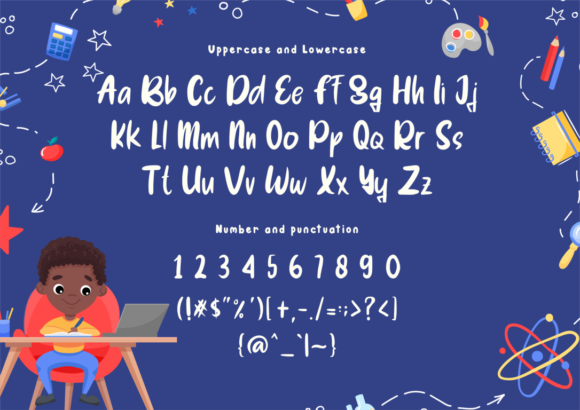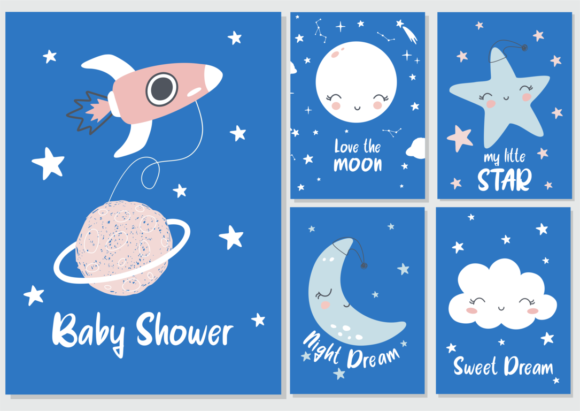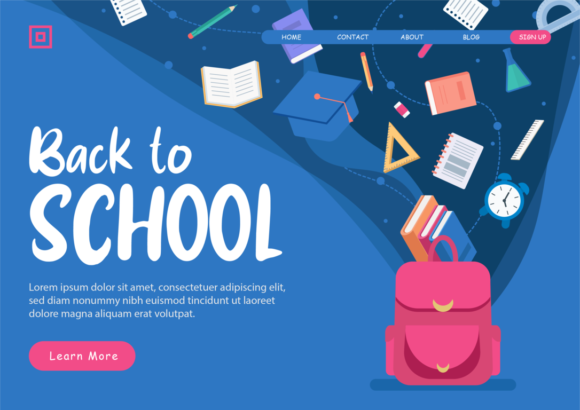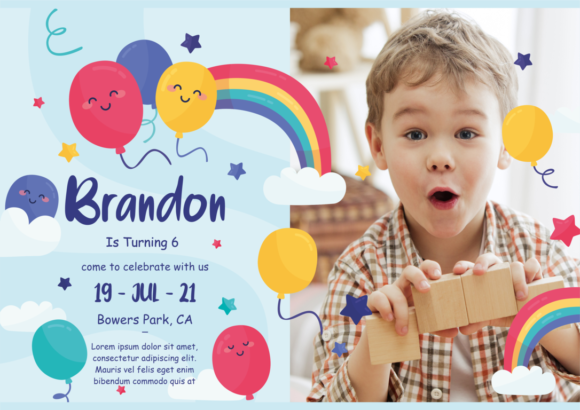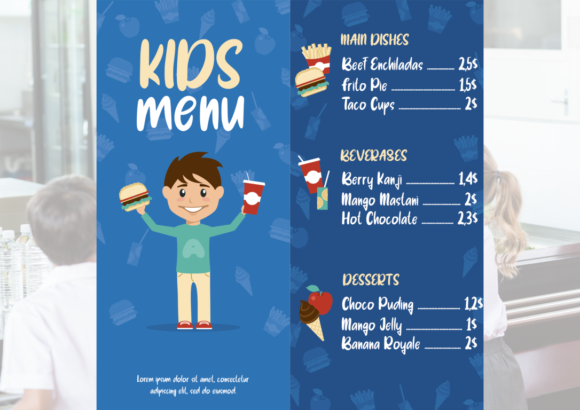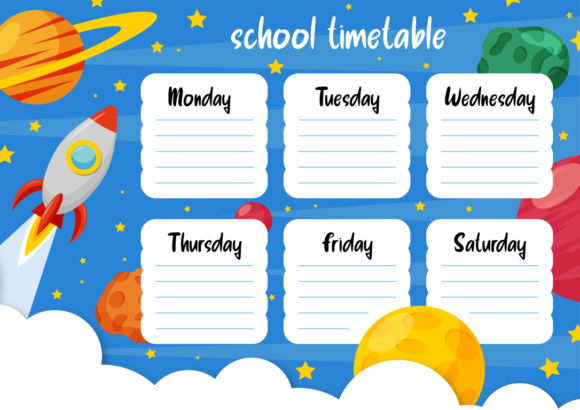
The Perfect Smile for Your Next Design Project
Have you ever sat down to create something new, only to be stuck staring at a blank page or screen, waiting for inspiration to strike? I know I have. Sometimes all it takes is the right tool to get those creative juices flowing, and that’s exactly where the Bright Smile Font comes in.
This delightful handwritten font is specifically designed to add a touch of joy and whimsy to your next project. Whether you’re working on a children’s book, a kindergarten design, or a fun game, the Bright Smile Font is the perfect addition to bring a smile to your audience’s face.
As a designer, you know the importance of choosing the right font to convey the right message. With the Bright Smile Font, you’ll be able to create projects that are not only visually appealing but also convey a sense of fun and playfulness.
Bright Smile Font Key Features
- Font Family: Bright Smile Font is a custom-designed font family that includes multiple weights and styles to cater to various design needs.
- Unique Characteristics: Bright Smile Font features a unique blend of modern and classic elements, with subtle rounded edges and refined lines that evoke a sense of warmth and friendliness.
Bright Smile Font Review
I recently had the chance to work with the Bright Smile Font, and I’m here to share my honest thoughts on it. Here’s what I think.
- Clean and Modern Design: The font has a clean and modern aesthetic that’s perfect for creating a professional look.
- Highly Legible: The font is highly legible, making it easy to read even at smaller font sizes.
- Fun and Friendly: The font has a friendly and approachable feel to it, making it great for use in creative projects.
- Limited Character Set: The font only includes a basic character set, which may limit its use in certain projects.
- No Italic or Bold Variations: The font doesn’t include italic or bold variations, which can make it less versatile.
- May Not Be Suitable for Formal Documents: The font’s friendly and approachable feel may make it less suitable for formal documents or situations where a more serious tone is required.
Overall, I think the Bright Smile Font is a solid choice for many projects. While it has some limitations, its clean design and high legibility make it a great option for creatives. With a little more development, I think this font could be truly exceptional.
For a more polished look, try pairing the Bright Smile Font with other fun and playful fonts.
For a more professional look, try using the Bright Smile Font in combination with other fonts and design elements.
For a more engaging presentation, try using the Bright Smile Font to highlight key points or add visual interest.
Some common use cases for the Bright Smile Font include:
- Creating eye-catching social media posts and ads.
- Designing fun and playful business cards and brochures.
- Adding a touch of personality to presentations and reports.
Remember to use the Bright Smile Font in moderation and balance it with other fonts and design elements to avoid visual overload.
Bright Smile Font is a modern, sans-serif font known for its clean lines and friendly feel. Here are a few alternatives that designers can consider: